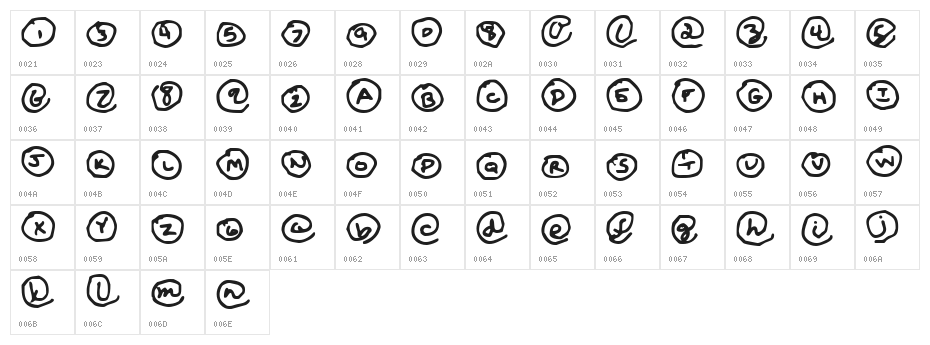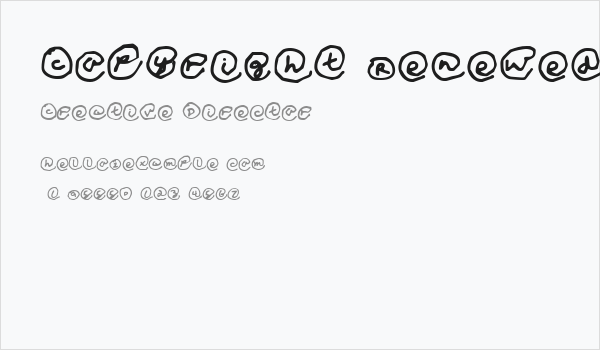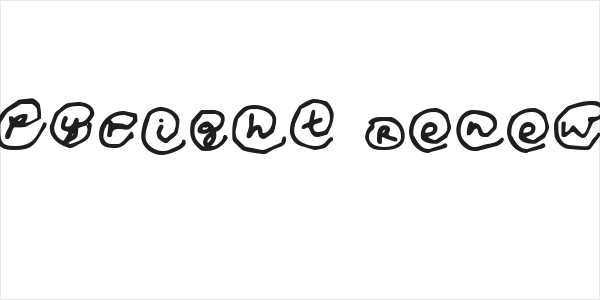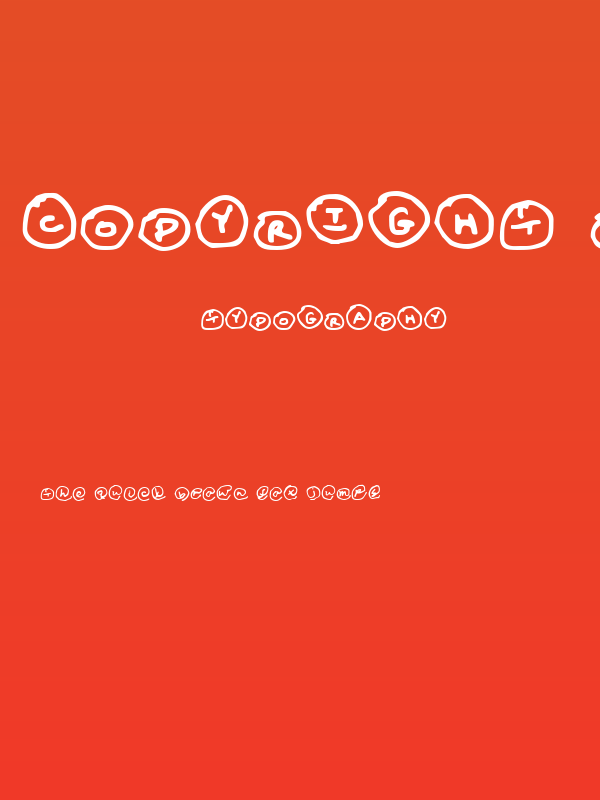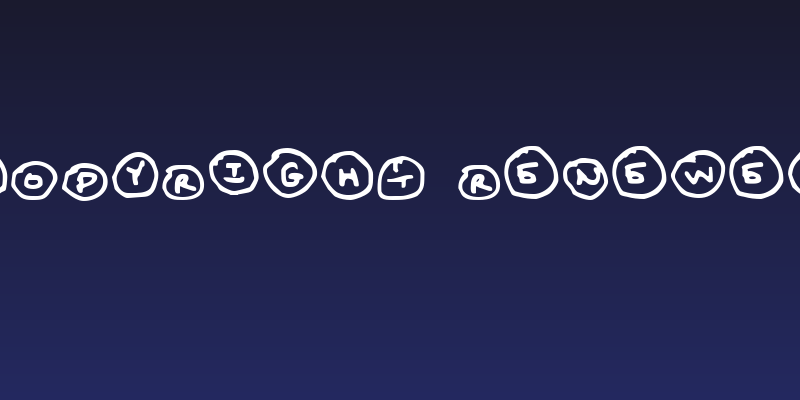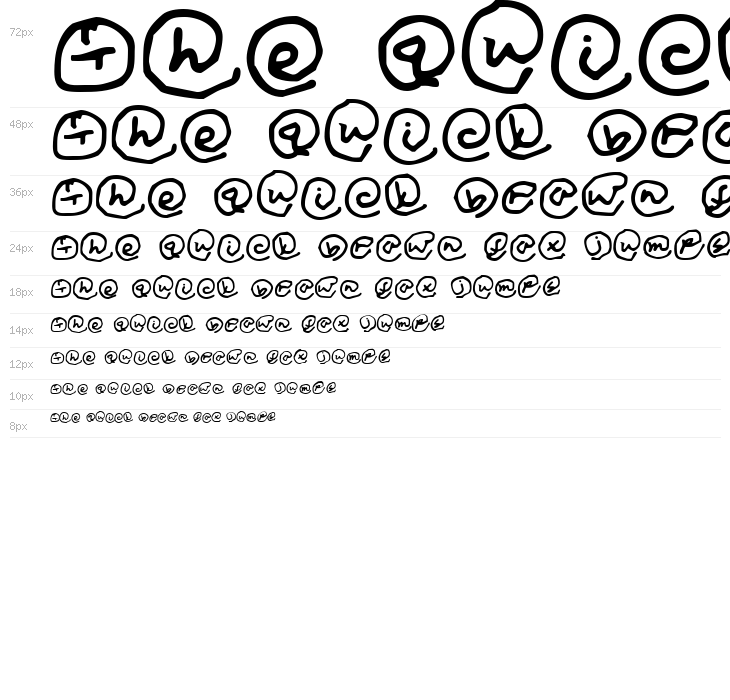
Copyright Renewed Font
Copyright Renewed Description
This font features a playful and whimsical style, with each character enclosed in a roughly drawn circle. The letters and numbers are hand-drawn, giving them an organic and informal appearance. The strokes are bold and uneven, contributing to a casual and approachable feel. The font maintains a consistent circular motif throughout, which adds a unique and cohesive element to the design. It is particularly suitable for creative and informal projects where a touch of humor or lightheartedness is desired. The font's distinct style makes it stand out, making it ideal for eye-catching headlines or playful branding.
| Proposed Projects | Ideal for children's books, playful branding, casual invitations, and creative posters. |